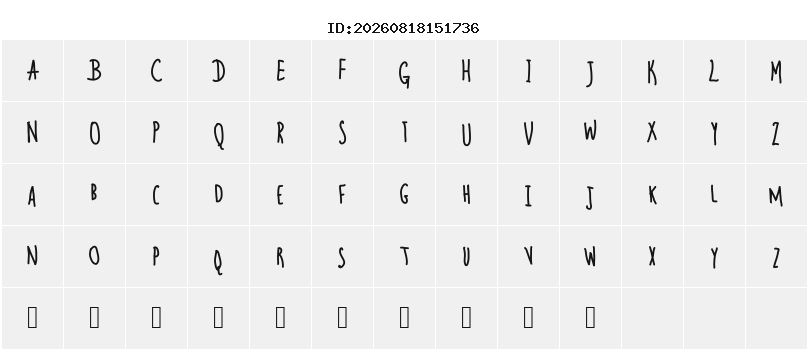
Slimmer Preview
• Font Name: Slimmer
• Full Font Name: Slimmer
About Slimmer.ttf
Slimmer.ttf is a modern, elegant sans-serif font designed for ultimate readability and visual harmony. Perfect for branding, headlines, web design, and print materials.